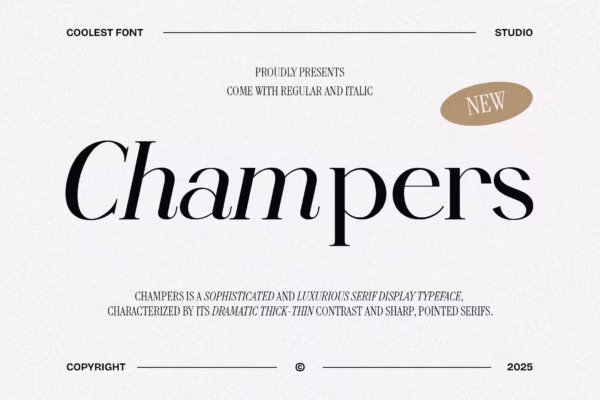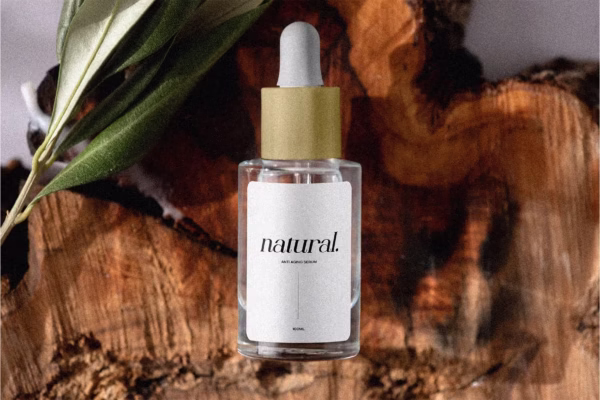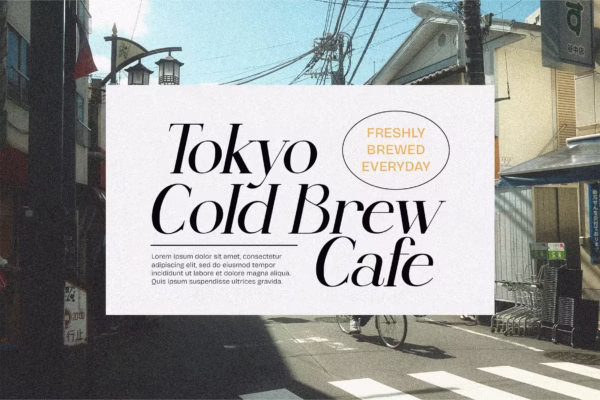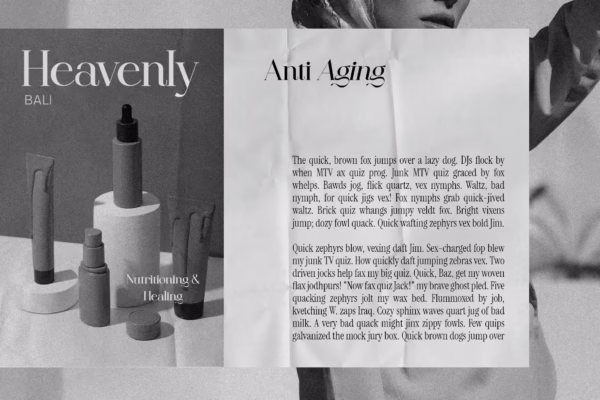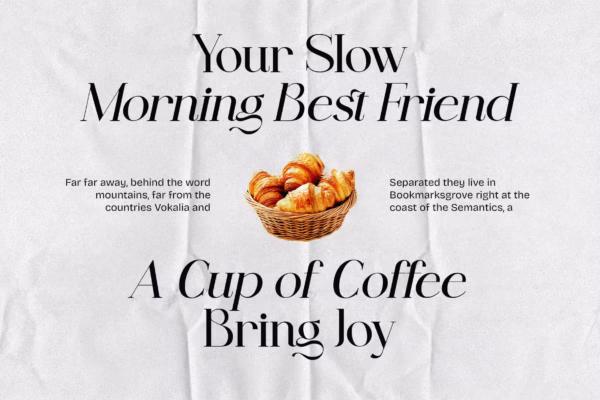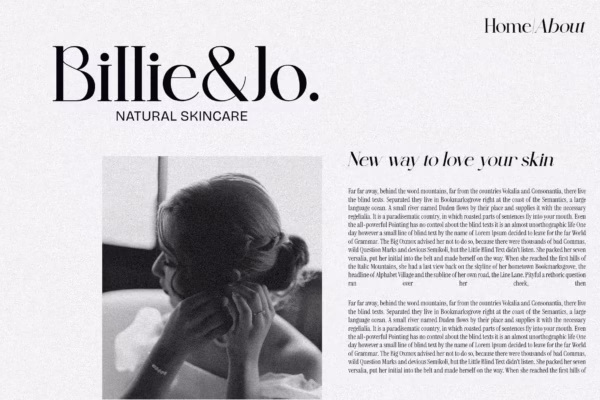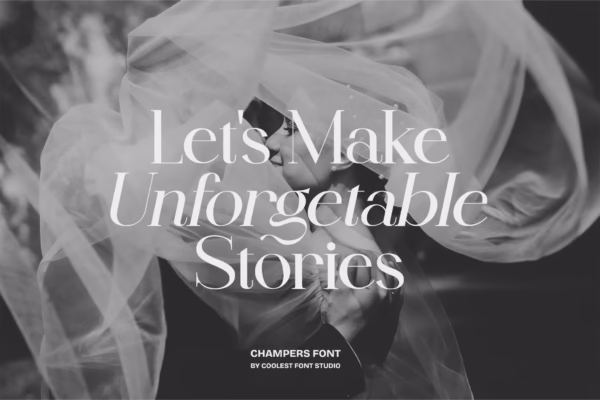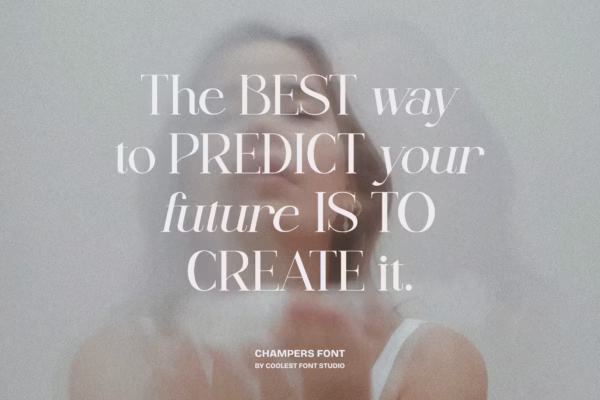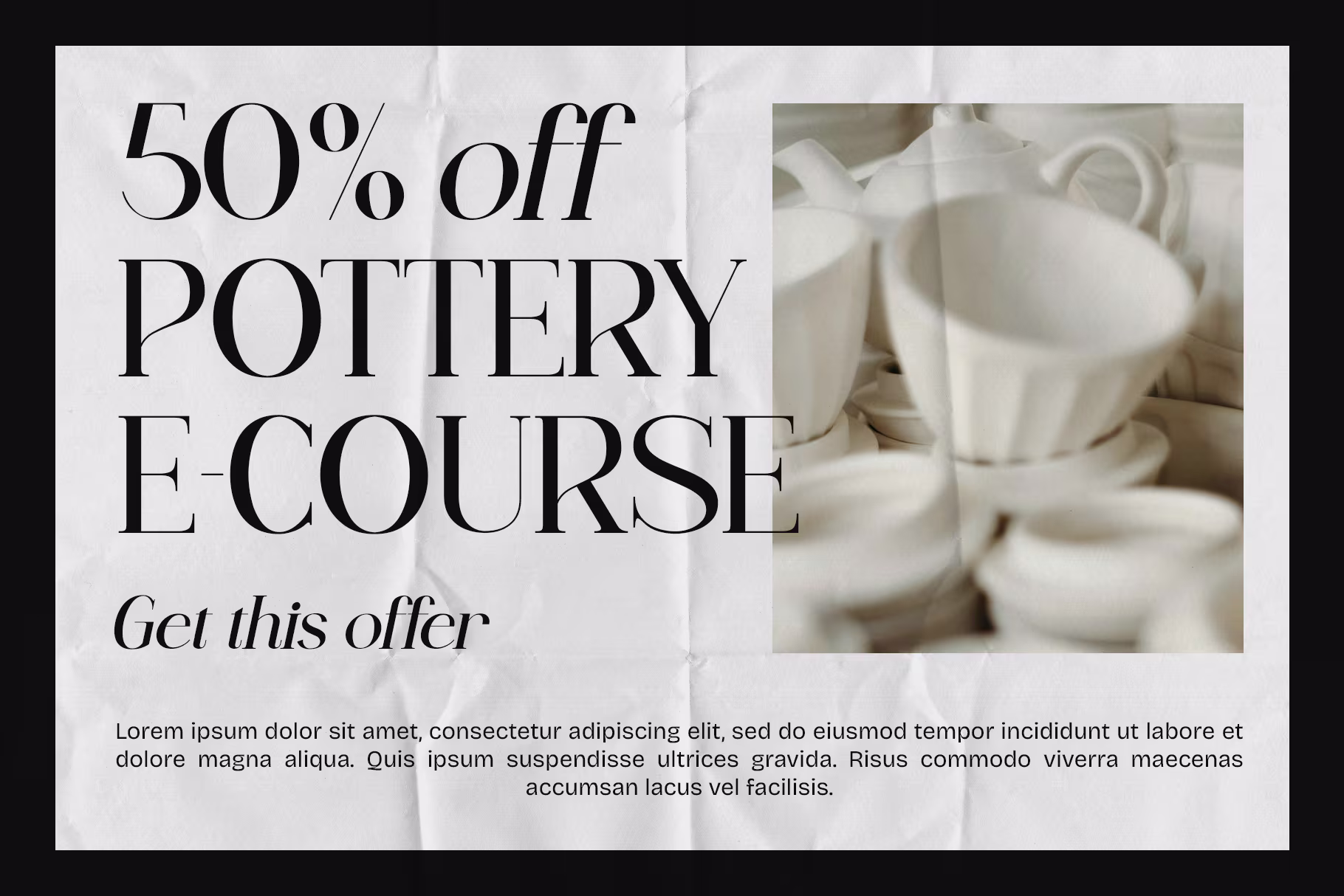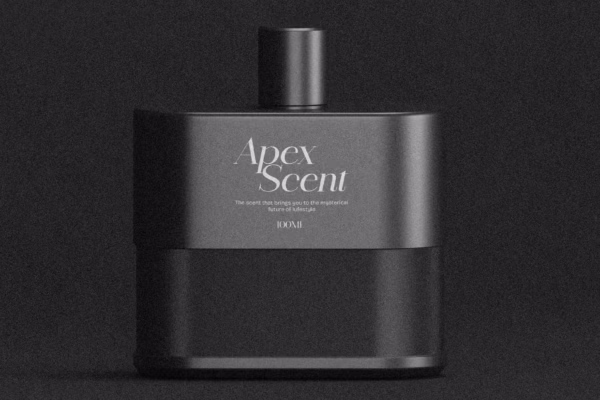
Champers Font
Champers Font – the stylish serif font that brings elegance, contrast, and a touch of drama to your designs. Available in Regular and Italic with TTF, OTF, and WOFF formats. Perfect for logos, invitations, packaging, and more. Classy, versatile, and ready to shine!
Champers Font: The Coolest Serif You’ll Ever Meet!
Hey there, design wizards! Get ready to meet Champers Font , the newest and coolest serif font in town. It’s like a fancy suit for your text—sharp, stylish, and guaranteed to turn heads wherever it goes.
What Makes Champers So Special?
• Regular & Italic: Champers comes in two dapper styles—Regular (the classic, straight-up champ) and Italic (the swanky, slanted sidekick). Whether you need something formal or just want to add a touch of flair, Champers has got you covered.
• Dramatic Thick-Thin Contrast: This isn’t your average serif—it’s bold where it needs to be and delicate when it counts. Think of it as the Beyoncé of fonts: fierce and graceful all at once.
• Sharp, Pointed Serifs: These aren’t just serifs; they’re little fashion statements. They’re sharp, precise, and totally on-trend. Perfect for making your designs look like they just stepped out of a high-end magazine.
Why Should You Fall in Love with Champers?
• Elegance on Tap: Champers is the ultimate luxury accessory for your typography. Whether you’re designing a wedding invitation, a brand logo, or an editorial headline, this font will make everything feel a bit more sophisticated.
• Versatility Galore: Need something bold? Champers Regular’s got you. Want to add some flair? Champers Italic’s your best friend. It’s like having two fonts in one, but way cooler because it’s just one font that does both.
How Can You Use Champers?
• Branding: Make your brand logo pop with Champers’ sleek and sophisticated style.
• Weddings & Invitations: Add a touch of elegance to your special event invites.
• Editorial Design: Use it for headlines, subheads, or any place where you want to grab attention.
• Packaging: Elevate your product packaging with a font that screams luxury.
• Typography Projects: Let your creativity run wild with Champers’ versatility.